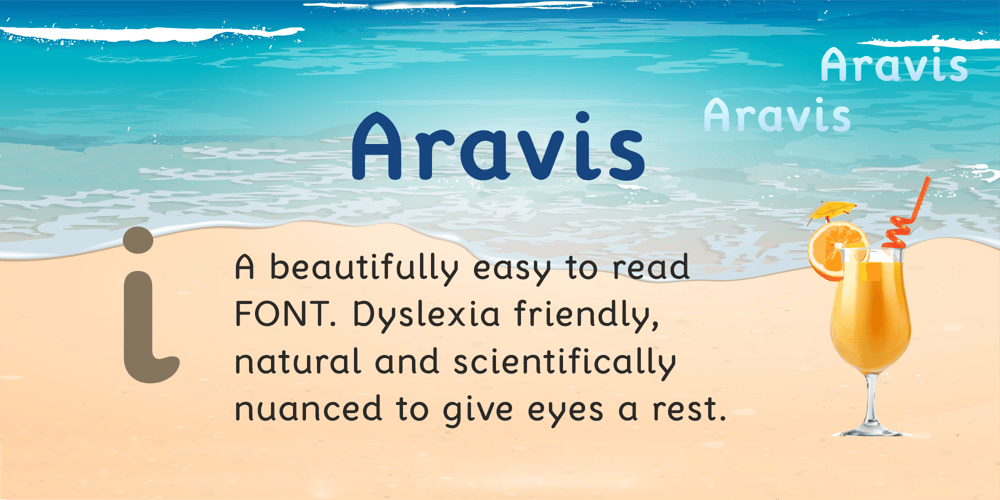
Aravis Font Family was designed by Anne Hext and published by AravisFonts.com. Aravis contains 8 styles and family package options. Amazingly easy on the eye; it draws the reader in with minimal brain bandwidth use. Designed to enable more focus on the content. Good for web pages. Very Dyslexia friendly. Our mission has been to create a font that scientifically designed to be dyslexia friendly while also being attractive and useful.Dyslexia features: Each letter is unique even if reversed or flipped. The spacing is carefully designed using scientific evidence to help all readers from those who read via word shapes to those who read using phonemes and syllables. The visual stress caused by contrast pattern glare is minimised and has fared well when measured by professionals against other common fonts. Usefully mid-sized to make it easy to transfer artwork from common fonts to Aravis. This is very helpful when providing reasonable adjustments for people with Dyslexia. Based on algorithms found in nature. Range of use: Ø 72 Latin based languagesØ Greek and CopticØ IPA extensionsØ Good Maths symbols provision with OT support for vulgar fractionsØ Innovative OT support for creating boxes for formsØ Small Capitals with some accents also supported (Czech) Ø Subscripts and sups: Complete alphabet upper and lower case and numbersØ Customers can request additional symbols and characters within reason, or add an accent /shape unique to their country if it fits with the overall mission of the font.